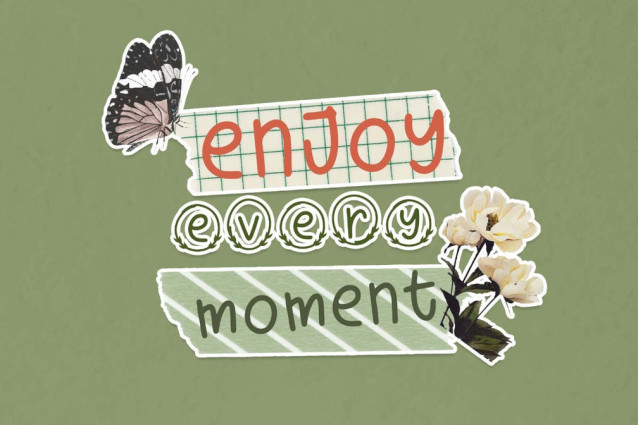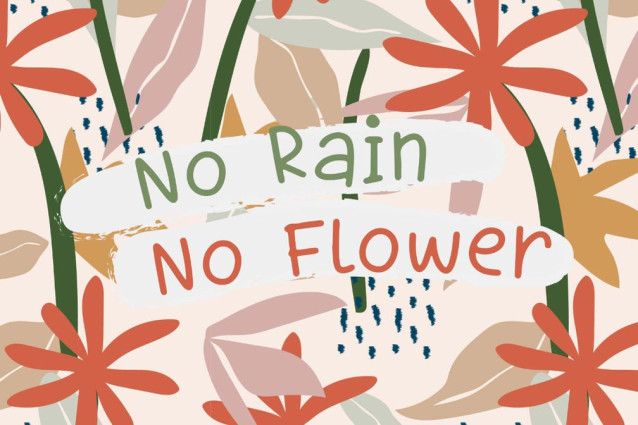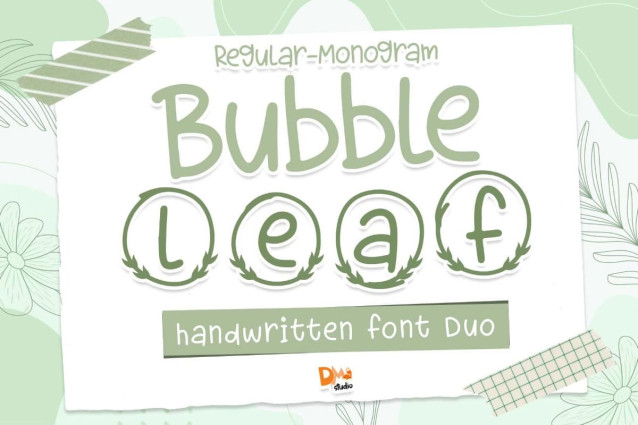
Bubble Leaf Monogram Font
Bubble Leaf Monogram Font – Design stunning monograms effortlessly with the Bubble Leaf Font Duo Monogram. This versatile font duo includes a bold bubble font and delicate leaf accents, perfect for personalizing your projects. Download now for free Personal Use!
Bubble Leaf Font Duo Monogram offers a delightful combination of playful bubbles and elegant leaves, perfect for adding a touch of whimsy and sophistication to your designs. This versatile font duo is ideal for monograms, logos, branding, invitations, and more, allowing you to create personalized and stylish compositions effortlessly.